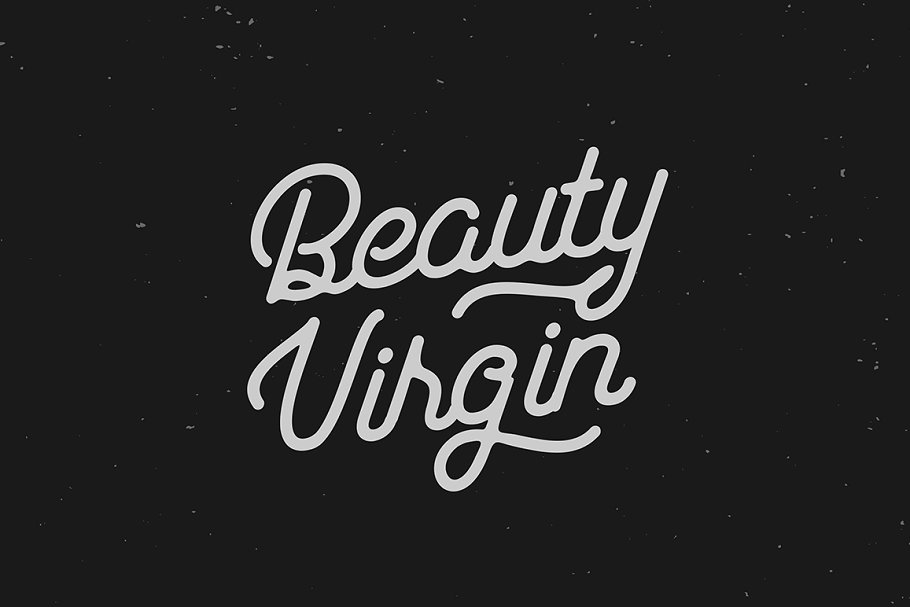
About the Hotline
Introducing Hotline – A monoline script presented by Locomotype, This is the second typeface after Garris who use monoline style, The difference is Hotline would be felt as a handmade font, where almost no sharp edges on each letter, You also can find opentype features such as ligatures, stylistic alternates, swashes, So you can easily mix and match your design more creative and distinctive